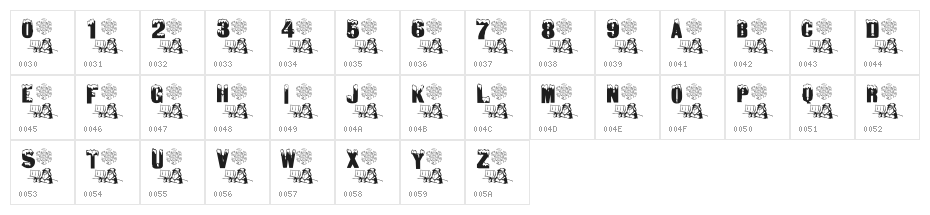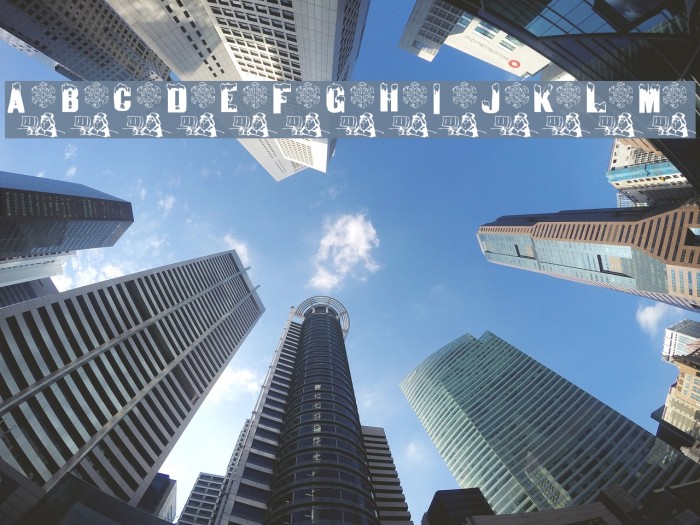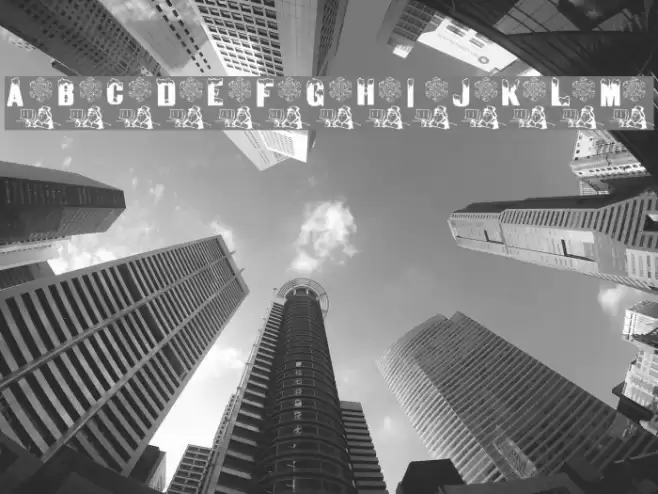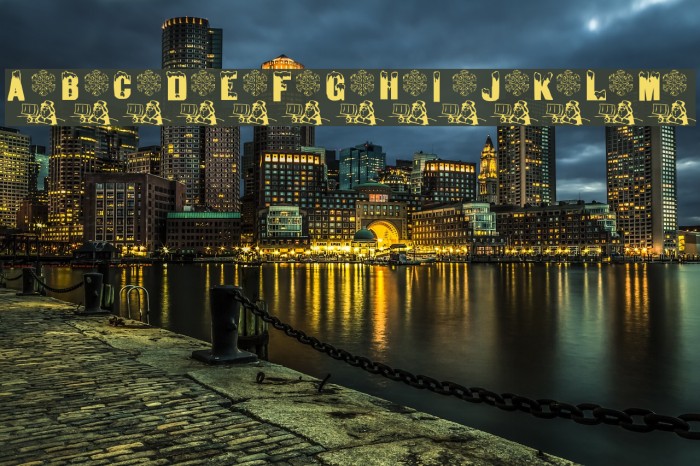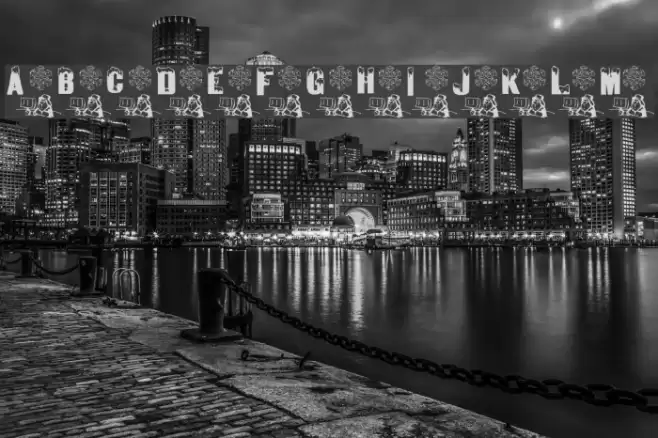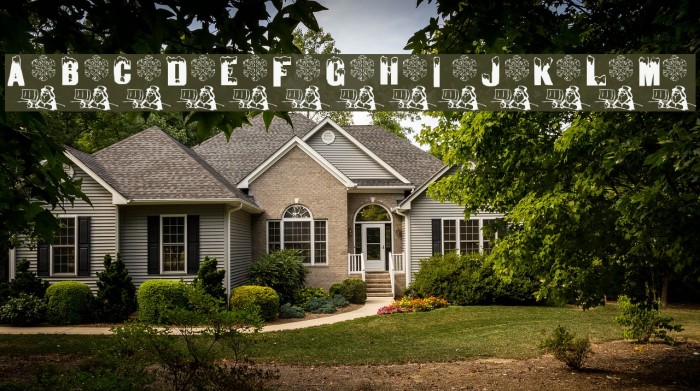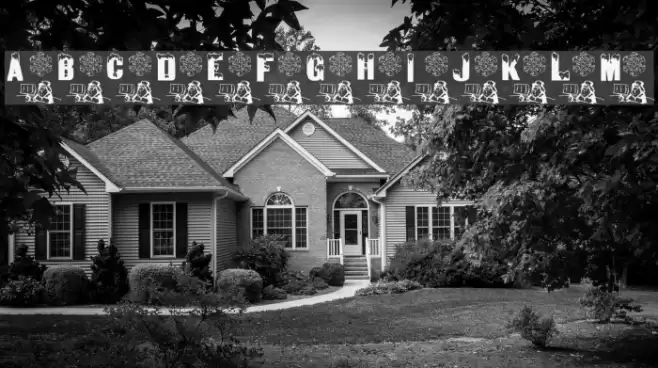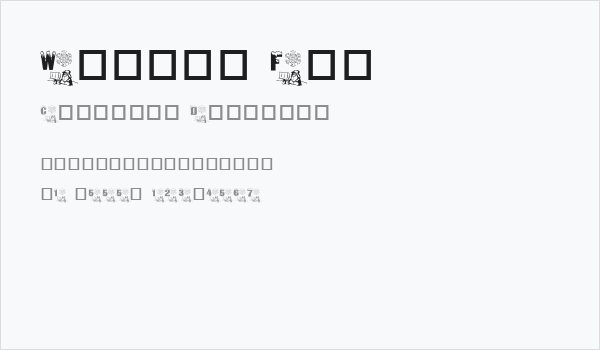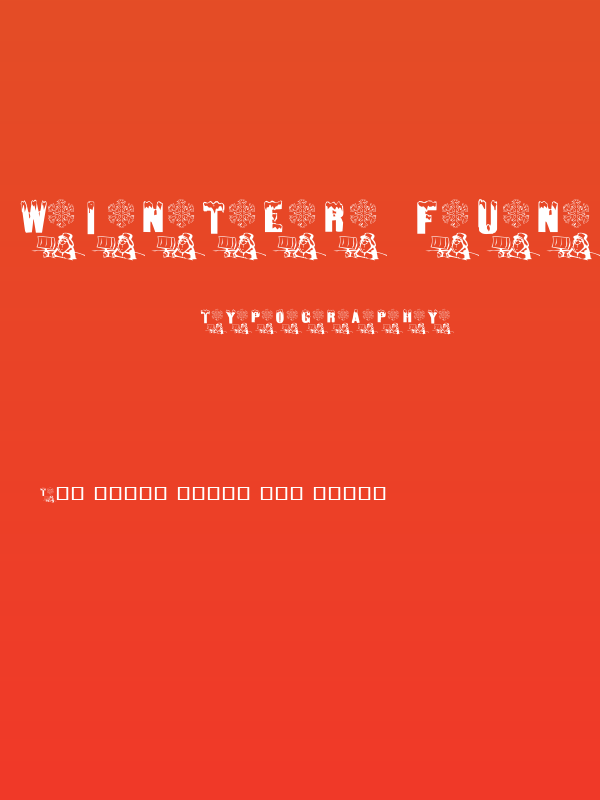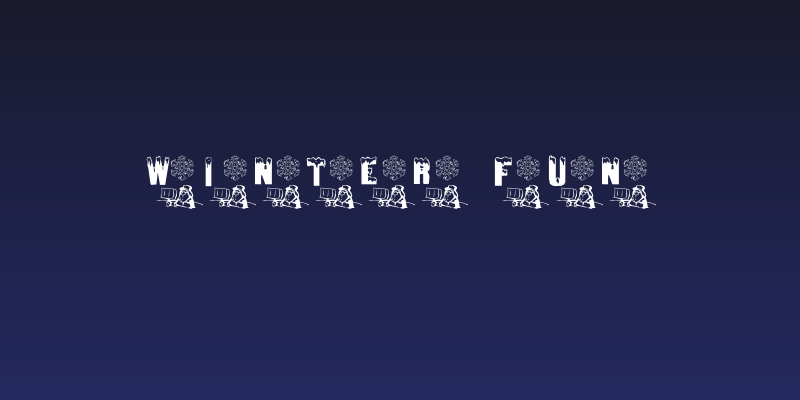
Winter Fun Font
Winter Fun Description
This playful and decorative font features each character adorned with winter-themed elements, such as snowflakes and sledding figures. The letters are bold and eye-catching, making them ideal for festive and seasonal designs. The whimsical style captures the essence of winter fun, with intricate details that add a unique charm to each character. The font combines a sense of joy and celebration, perfect for projects that aim to convey a cheerful and lively atmosphere. Its distinctive appearance ensures that it stands out in any design, making it a great choice for holiday cards, party invitations, and winter-themed branding.
| Proposed Projects | Holiday cards, party invitations, winter-themed branding, festive posters. |